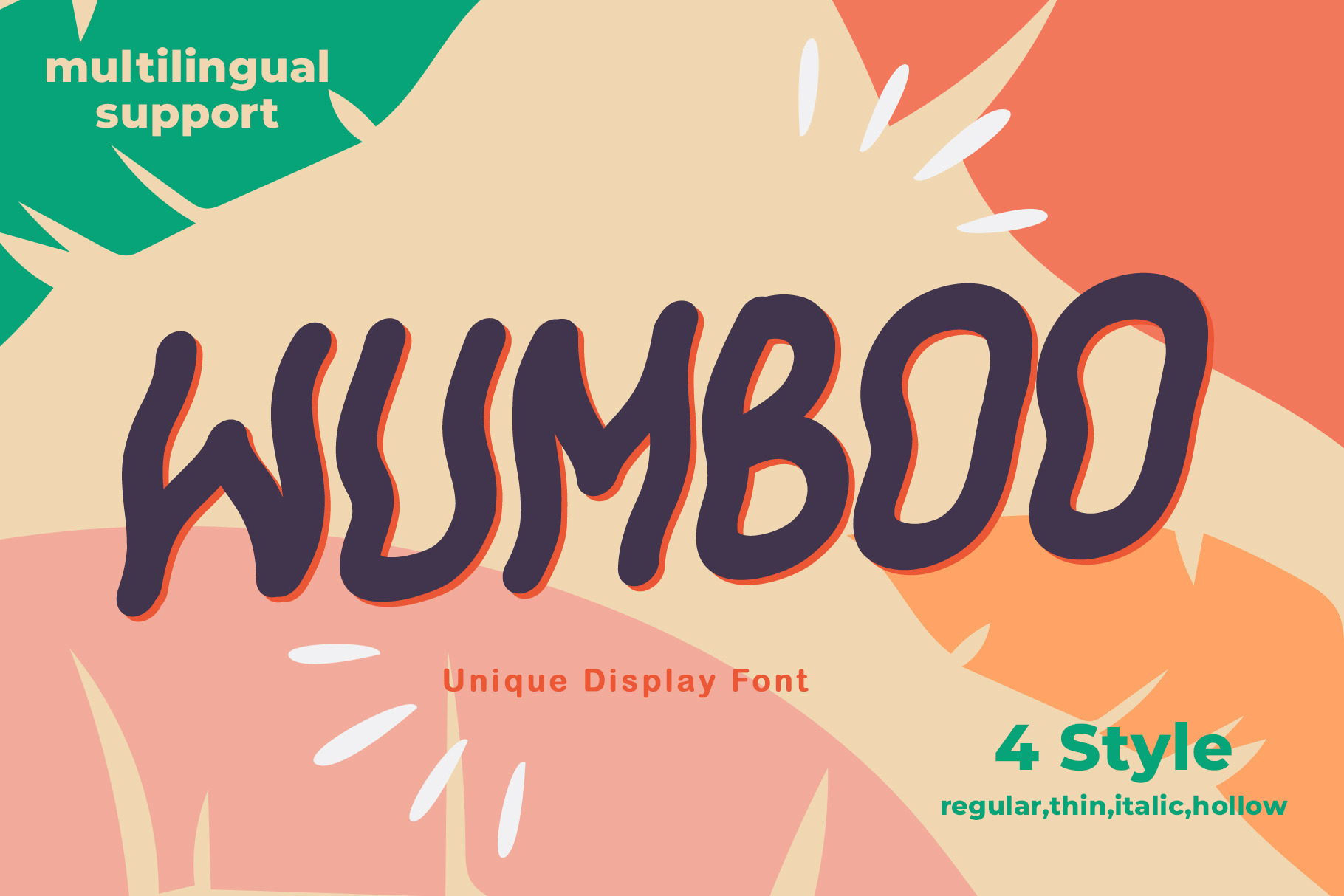
I proudly introduce to you Wumboo a unique display font, very unique and wiggle look font. Can make it easier to convey the message in your design. Use for awesome display, Logo, labeling, clothing, movie screen, poster, movie title, gigs, album covers, logos, and much more.
- 4 Style of font ( Regular, Italic, Thin, and Hollow )
- Numbering
- Character